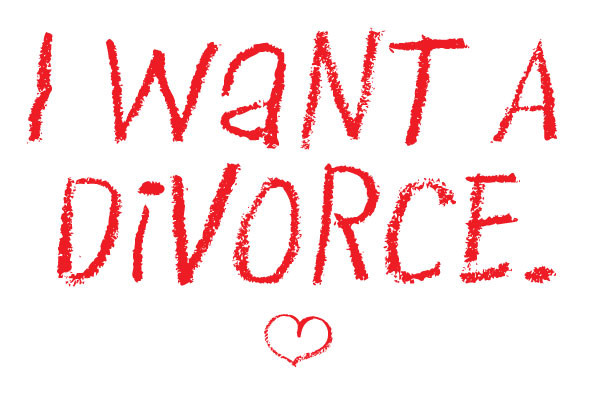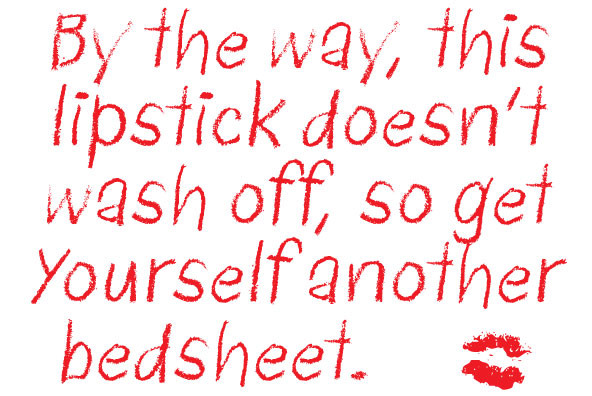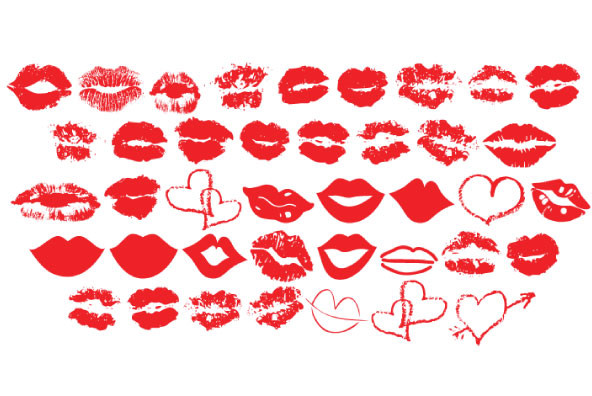
Lipstick
The idea for Lipstick came from a snippy little note Patrick Griffin's better half left for him one night. The note was tacked to the bedroom door. 'COUCH TONIGHT!' it exclaimed in red lipstick on a paper towel. All because the hockey game was on at the same time as American Idol. Sheesh. But since all is fair in love and hockey, and since Patrick was used to such cruel treatment, he shrugged his shoulders and let his mind wander about the concept of using lipstick as a writing tool, and pondering the possibilities of a lipstick font. Almost immediately upon researching the concept, it became quite evident that the texture of lipstick writing has a lot in common with chalk writing. Lipstick is slightly smudgier, but chalk and lipstick produce essentially the same effect when used as a writing tool. So the search for inspiration had to go beyond MAC Cosmetics and into the realms of chalk fonts. While perusing a few chalk alphabets, we ran across a 1970s film type called Sidewalk, which we thought would be the perfect model for lipstick. After digitizing it and changing it to our liking, we realized that it was a bit too upright for realistic rough writing, so we made it much more believable with a little slant. Along with the main Lipstick font, we included an Extras font that contains a bunch of lipstick kisses, hearts and assorted paraphernalia. So smooch away and moooooooah right atcha.